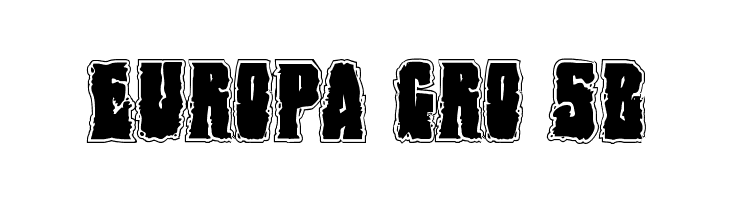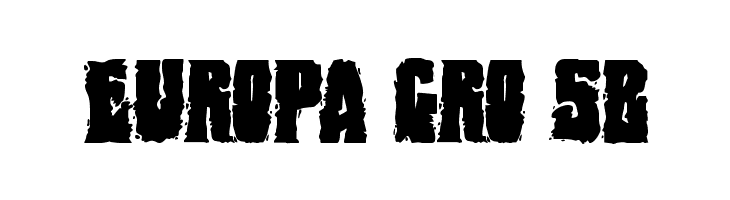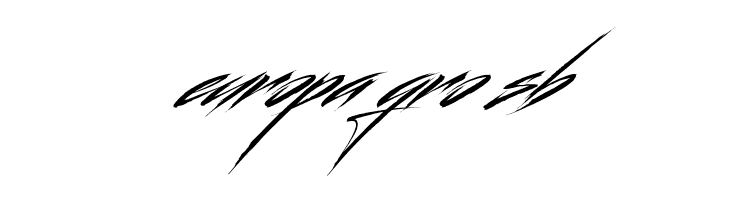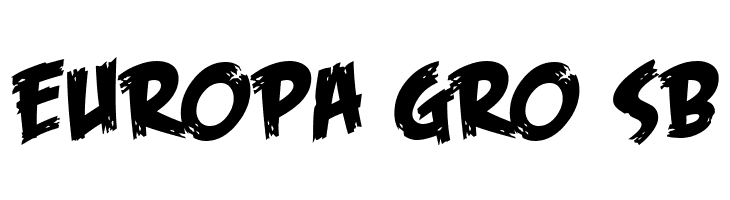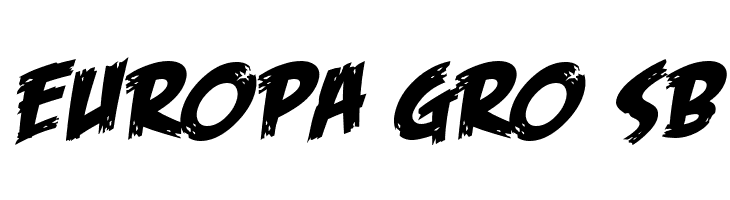
A bold, rugged font with distressed, jagged edges and a wild appearance.
A bold, rugged, condensed italic font with a textured, distressed appearance.
A bold, distressed font with a rugged, grunge-like texture.
A bold, rugged outline font with jagged edges and a textured appearance.
A bold, distressed font with a rugged, organic texture and jagged edges.
A dynamic, angular font with sharp strokes and a sense of motion.
A bold, jagged font with an aggressive, brush-like style.
A bold, jagged, and italicized font with a raw, brush-like style.